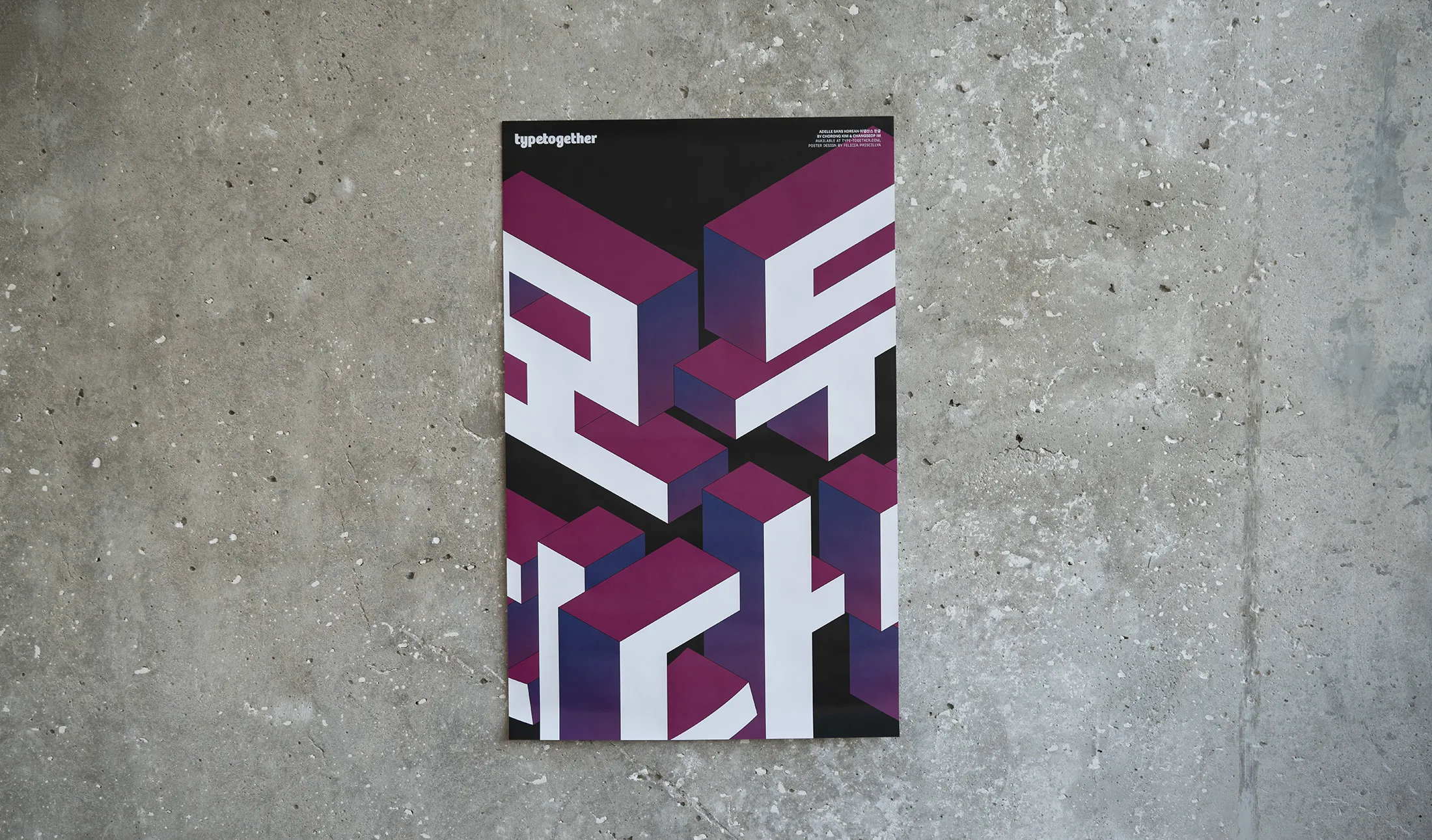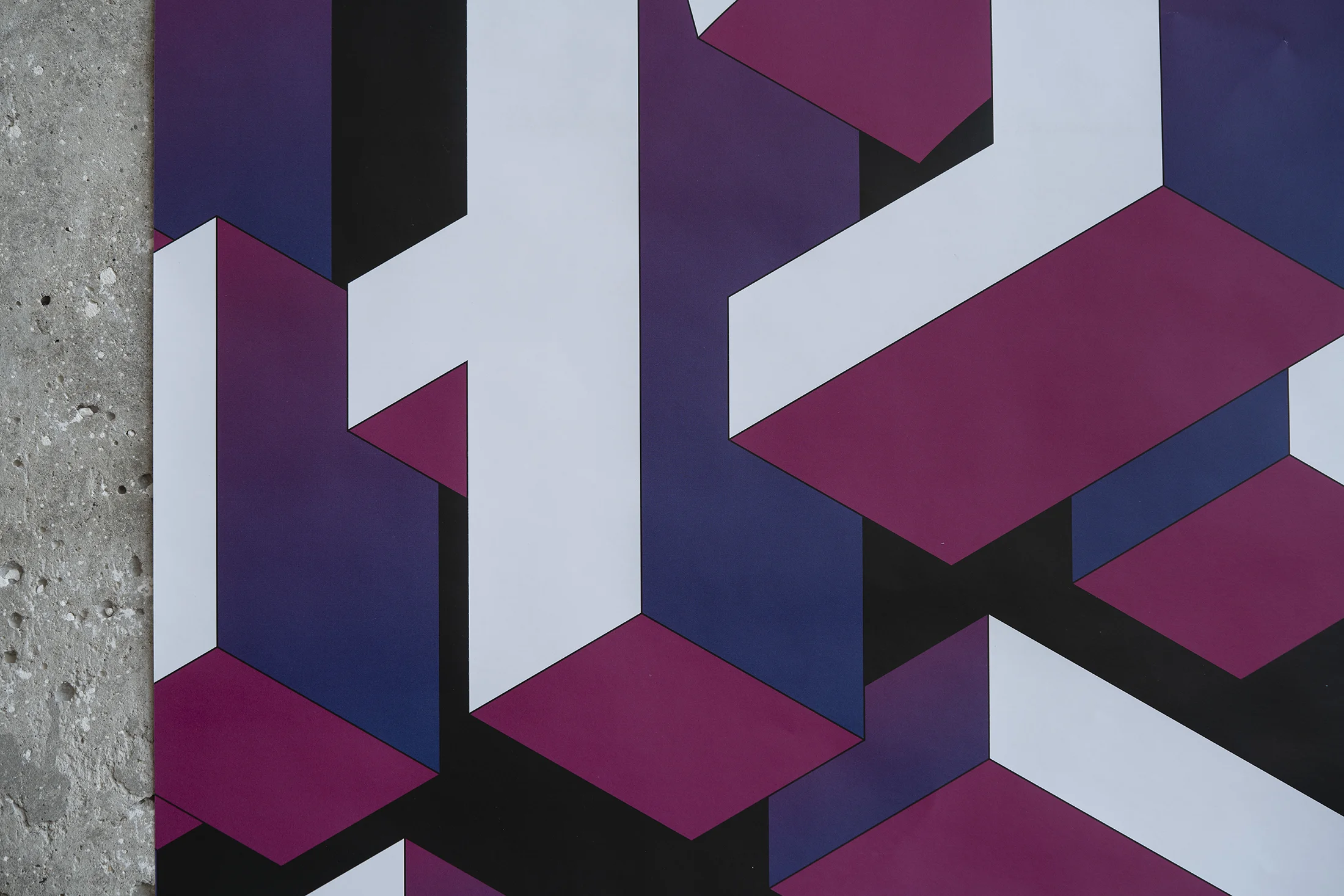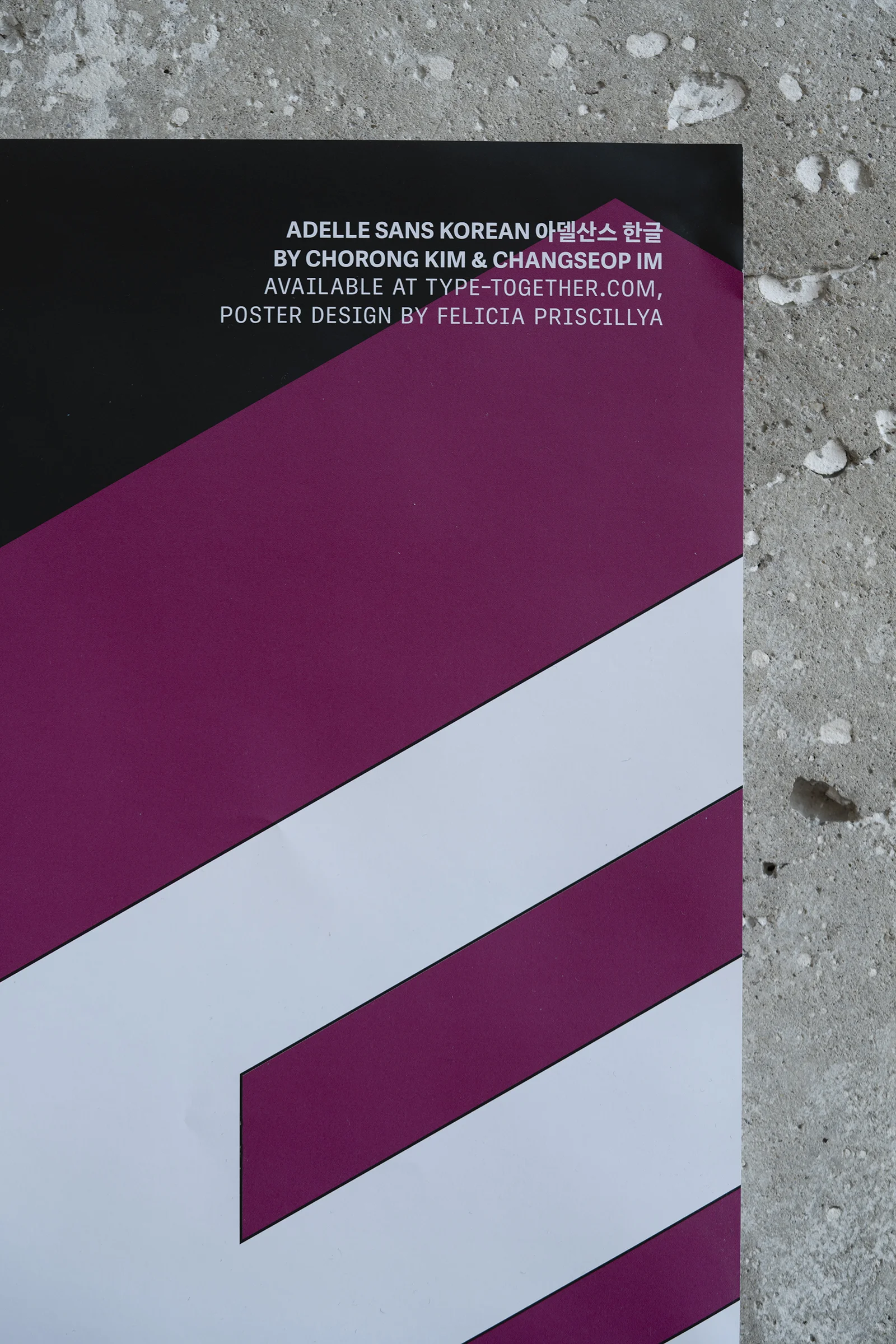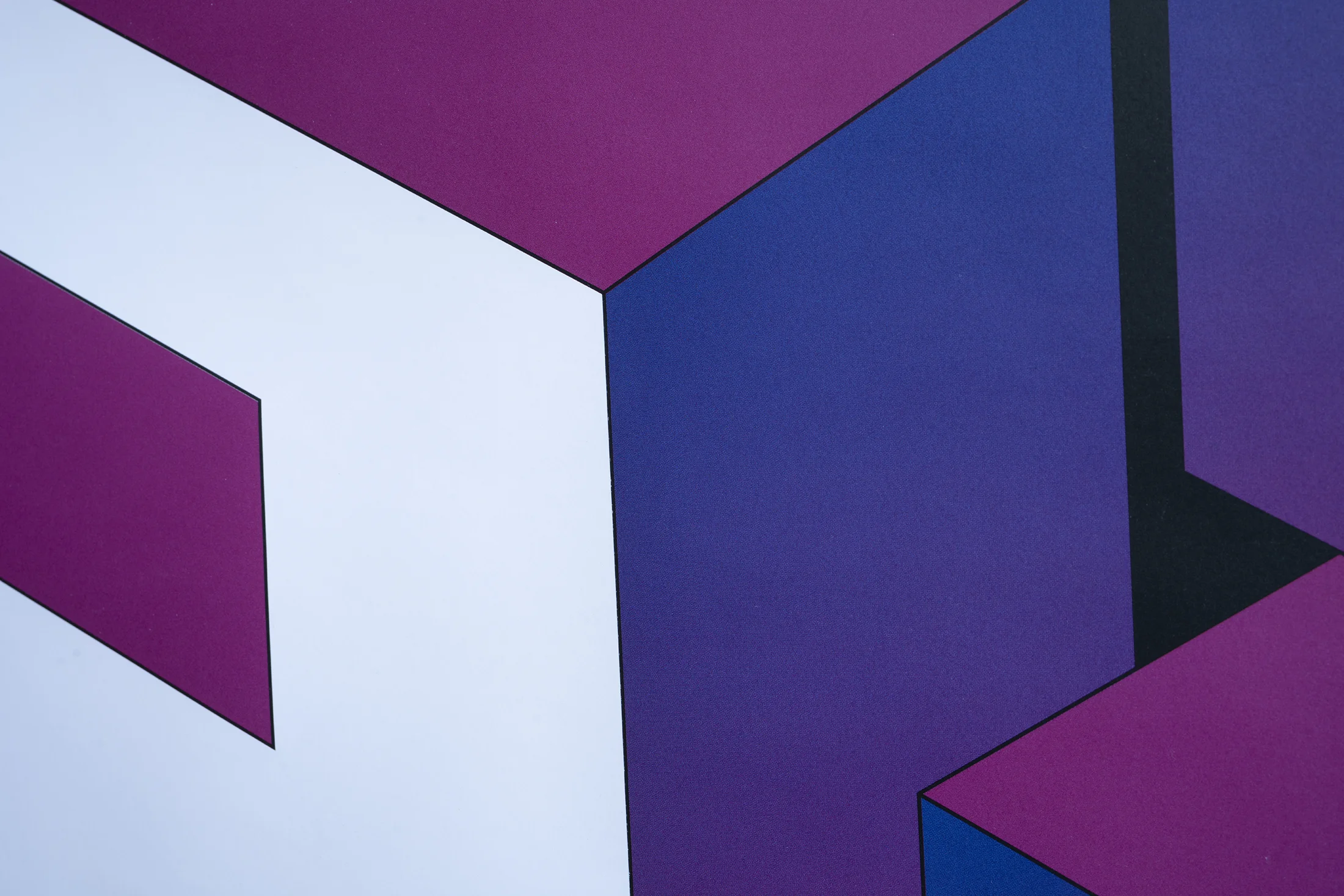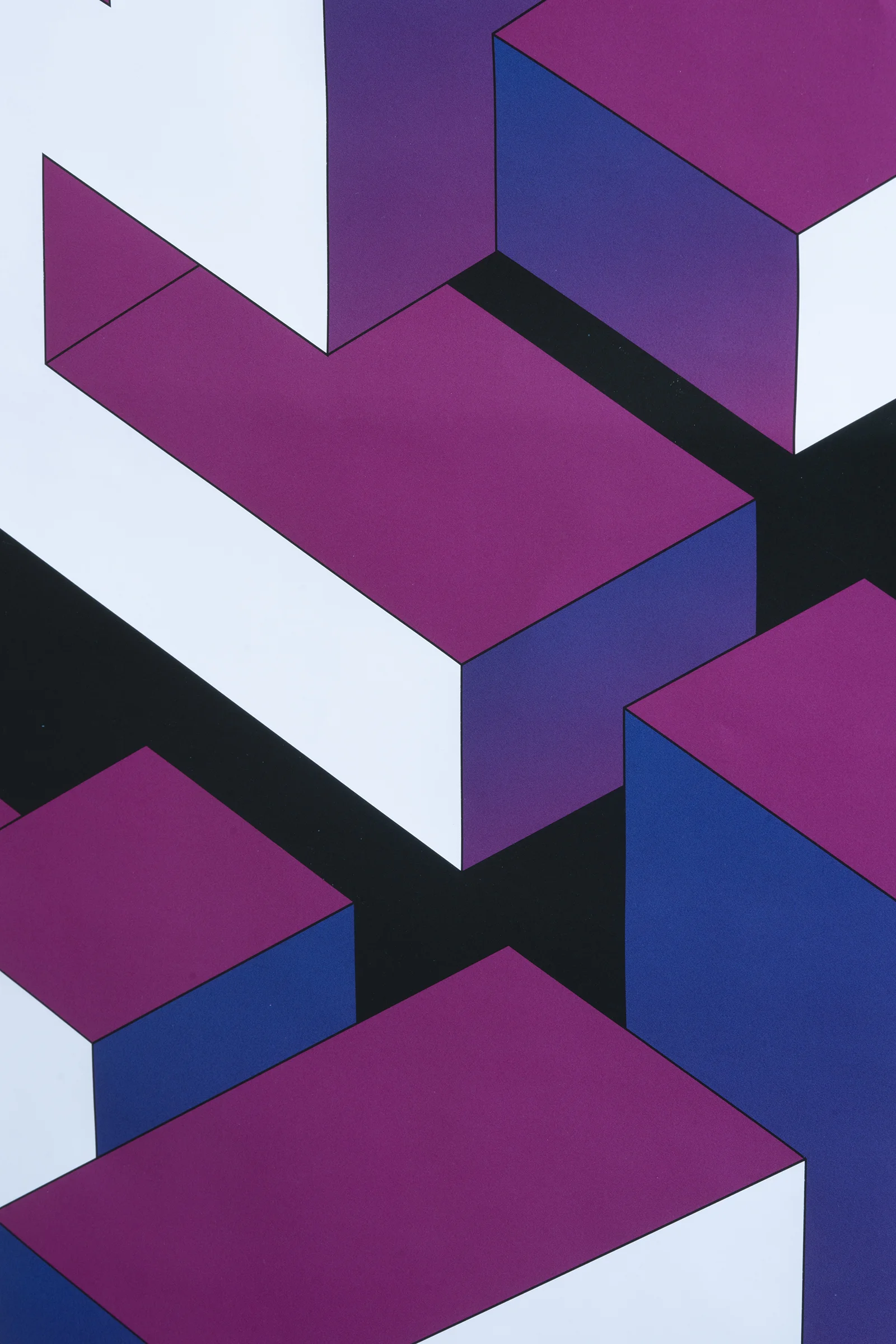
Adelle Sans Korean poster
Our poster collection is growing! Now you can get our new Adelle Sans Korean poster, designed by our team designer Felicia Priscillya.
Our Adelle Sans is part of a globetrotting family with 13 scripts and an astounding range of styles, including variable font versions. It’s one of our most flexible and personable world-ready sans font families, providing true multilingual font support, and it also has a companion slab serif named Adelle for greater impact and applicability. The Korean script was designed by the talented Chorong Kim and Changseop Im just last year. Our team designer Felicia Priscillya created a poster to celebrate it, and now it’s ready to grace your space.